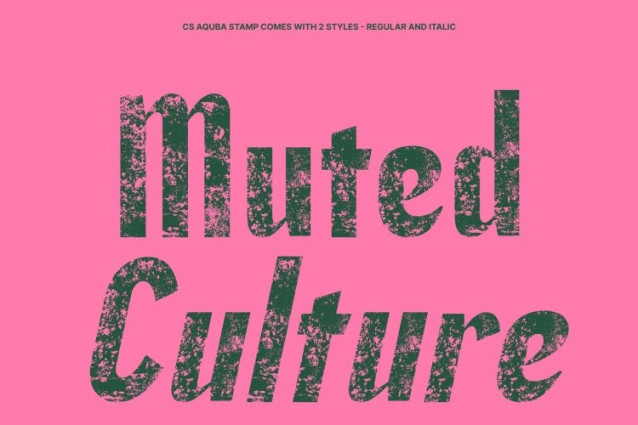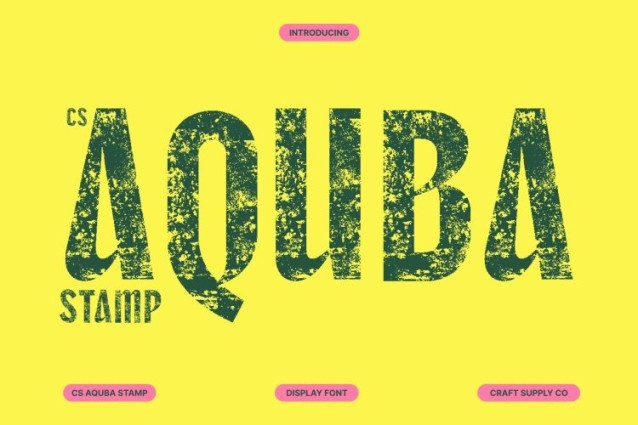
CS Aquba Stamp Font
CS Aquba Stamp Font This is a modern sans serif display font built on bold geometric foundations. Its strong, confident letterforms deliver immediate visual impact, making designs feel solid, assertive, and unmistakably modern. Clean construction and balanced proportions ensure clarity while maintaining a striking, high-energy presence.
Distressed Stamp Texture with Vintage Edge
The added stamp effect introduces rough, worn textures that give this font a vintage and industrial character. This artistic distress softens the rigid geometry, adding depth and personality while evoking classic print aesthetics and old-school stamping techniques.
Bold Sophistication for Branding and Advertising
Designed to stand out, this font excels in branding, advertising, and promotional visuals. Its bold structure ensures maximum visibility, while the textured finish adds character and authenticity making logos, headlines, and marketing materials feel powerful yet refined.
Versatile Display Font for Modern Design Needs
From digital layouts and social media graphics to posters, signage, and packaging, this font adapts effortlessly across multiple applications. Its combination of modern geometry, bold impact, and vintage texture makes it a reliable and expressive choice for designers seeking strength, style, and timeless visual appeal.